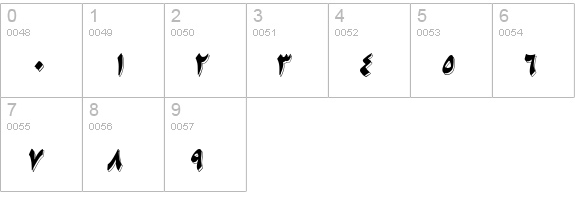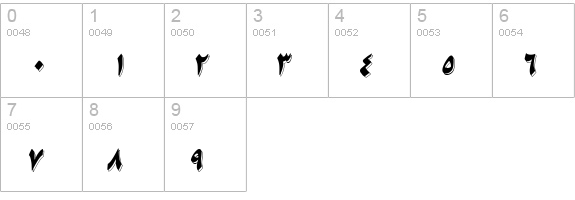
B Nikoo Italic Font Details
B Nikoo Italic is a distinctive, italic variant in the B typeface family \xE2\x80\x94 well suited to design and typography projects.
B Nikoo Italic is a sleek and elegant font that effortlessly combines modern sophistication with a touch of artistic flair. Its flowing curves and stylish slant create a sense of movement and dynamism, making it perfect for adding a touch of class to any design project. The italic style adds a sense of drama and sophistication, making it ideal for headings, logos, and other display purposes. What's even better is that B Nikoo Italic is available for free download at FontsMarket.com. This means you can easily access this stunning font and use it in your projects without any cost. Whether you're a designer looking to elevate your creations or a business owner in need of a fresh look for your branding, B Nikoo Italic is sure to make a lasting impression. Download it today and bring a touch of elegance to your designs!